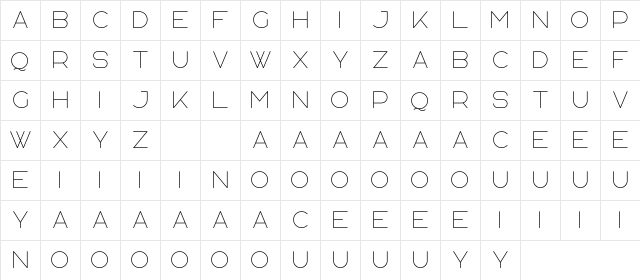
Agelast Regular
Design Context for Agelast
Agelast is a composed and adaptable typeface that performs quietly and consistently across a wide range of design contexts.
Pro Tip: Use Agelast in both headline and body roles to test its range before committing to a single application.